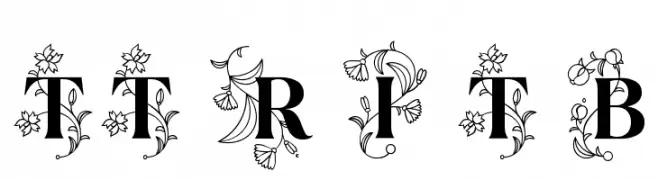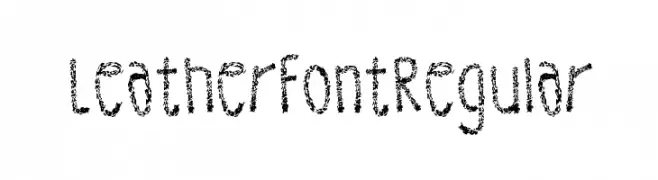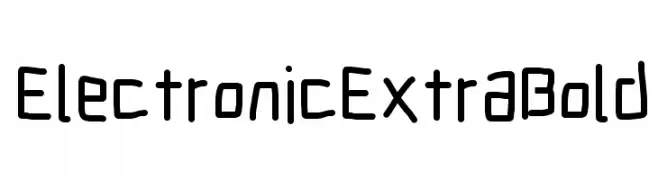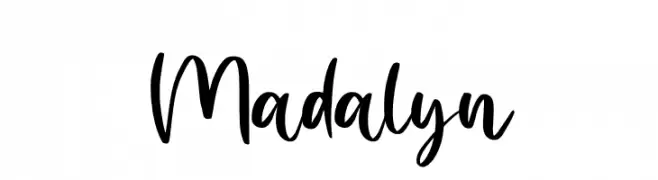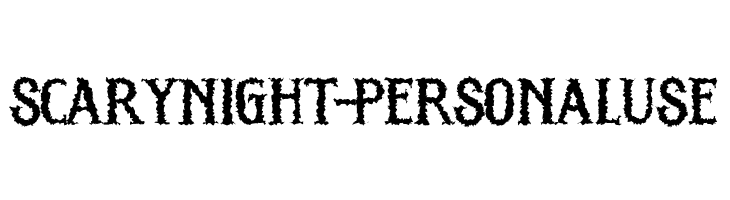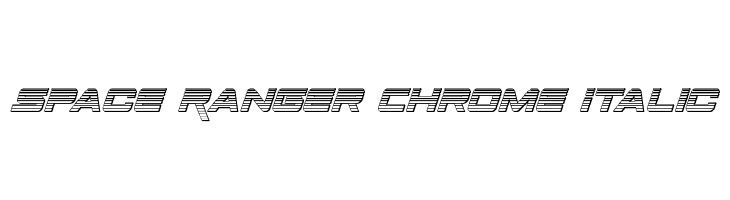
A playful, duck-themed decorative font with cartoonish outlines.
An ornate, decorative font with floral embellishments.
A textured, distressed font with a rugged, leather-like appearance.
A bold, striped font with a distressed, horror-themed aesthetic.
A bold, dynamic font with a slanted, energetic design.
A bold, hand-painted style font with dynamic, brush-like strokes.
A bold, geometric font with a modern, digital aesthetic.
A bold, geometric font with italicized characters enclosed in hexagons, perfect for modern designs.
Casual handwritten script font.
A lively and expressive handwritten font with flowing, interconnected letterforms.